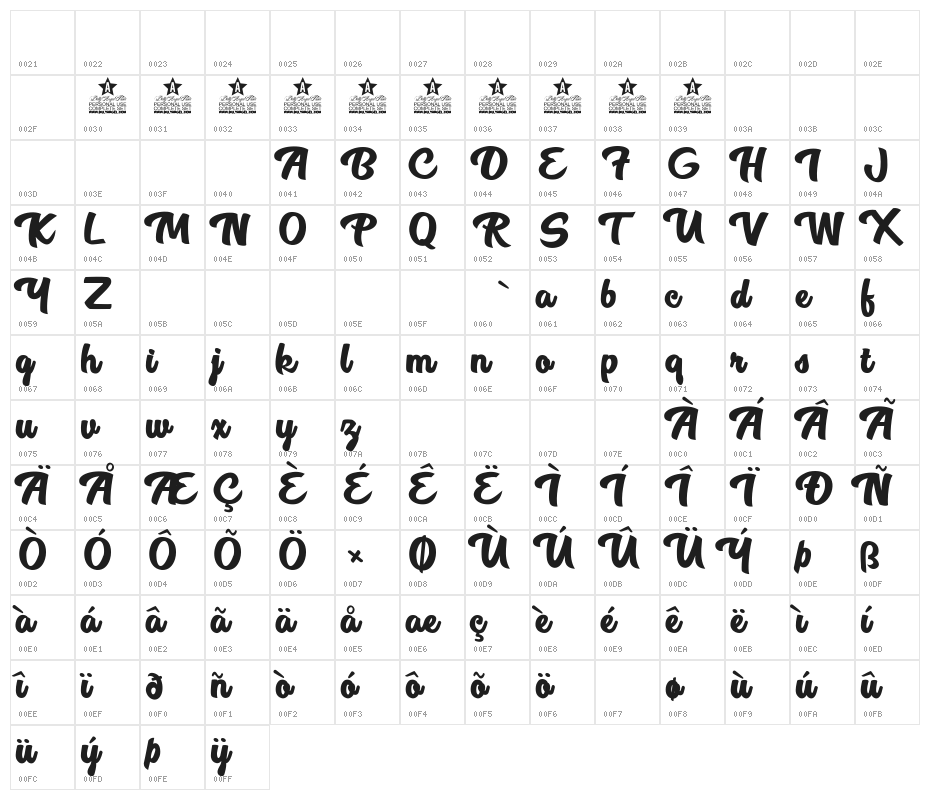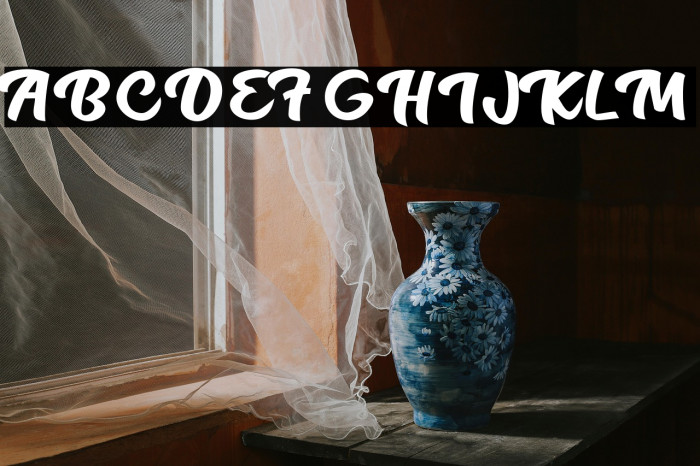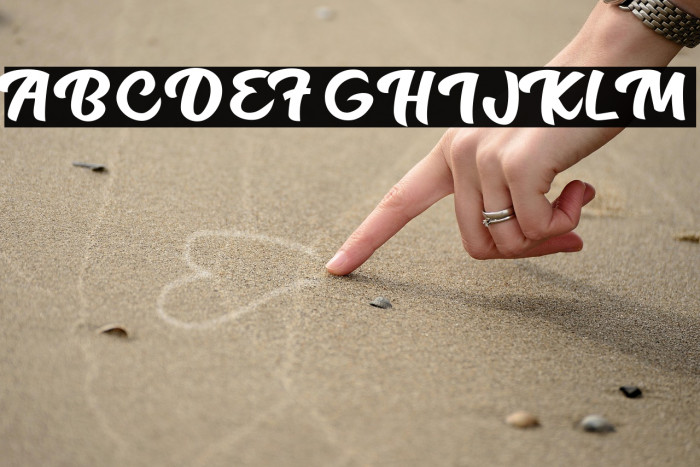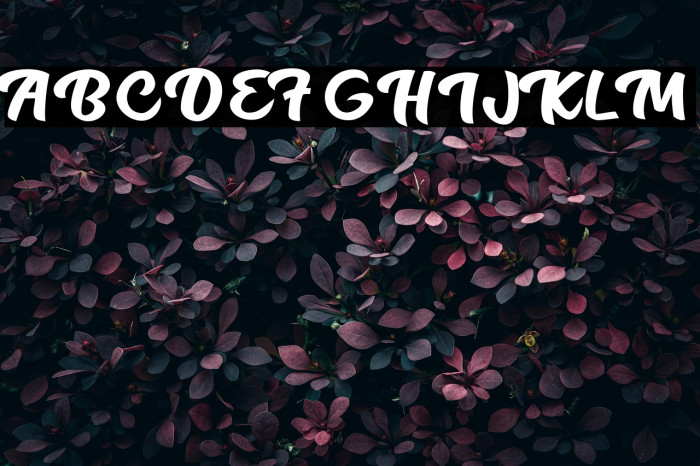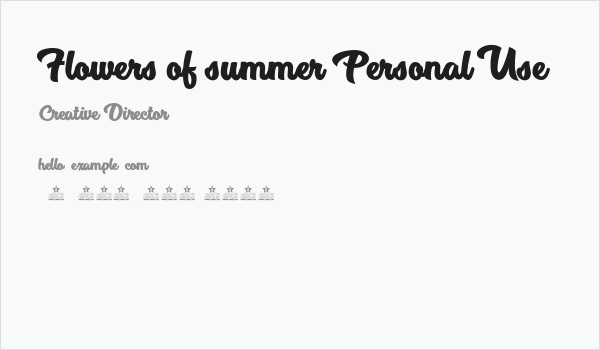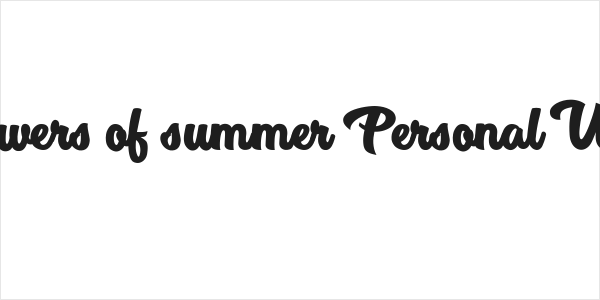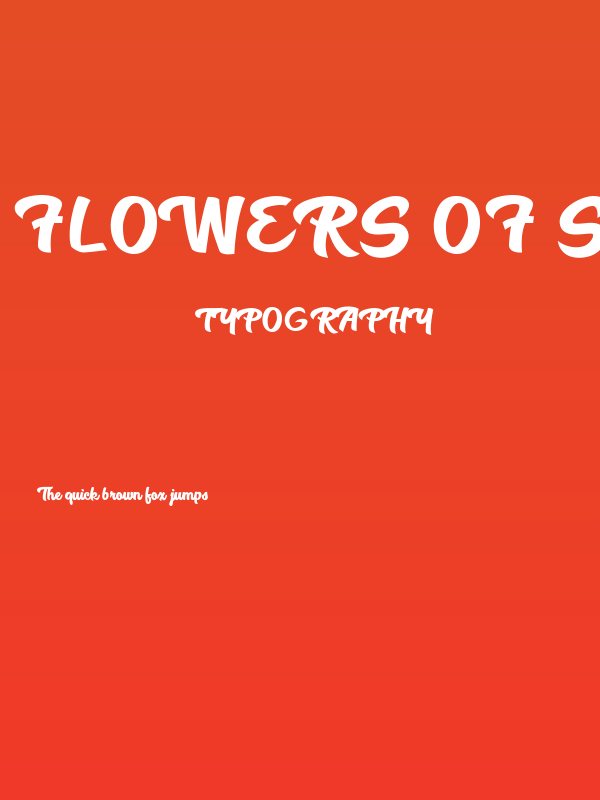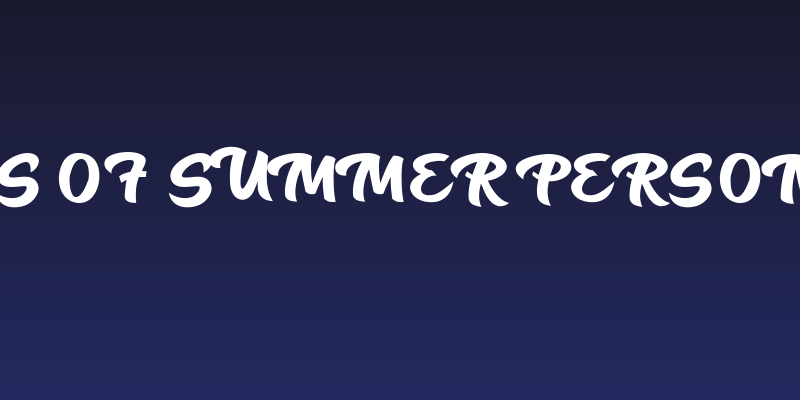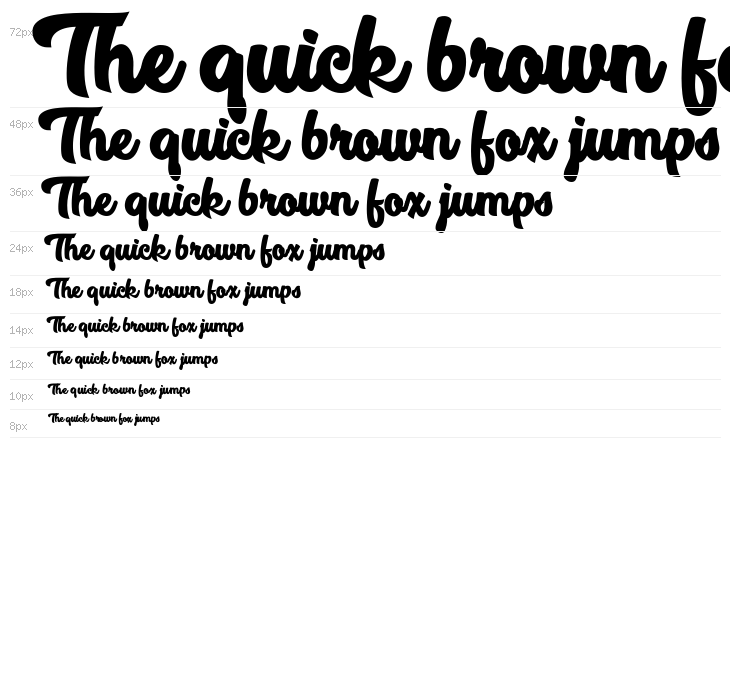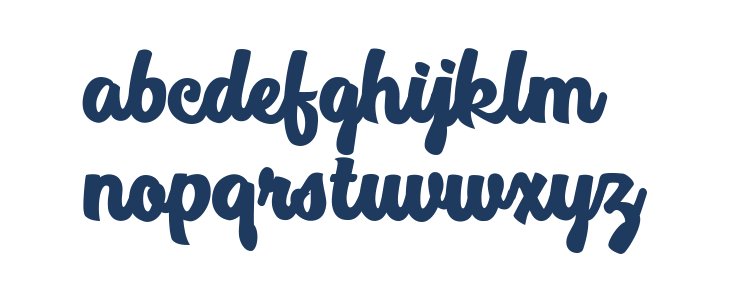
Flowers of summer Personal Use Font
Flowers of summer Personal Use Description
This font features a bold and flowing script style, characterized by its smooth, connected letters that mimic the fluidity of handwriting. The uppercase letters are elegantly curved, while the lowercase letters maintain a consistent thickness, enhancing readability. The font exudes a playful yet sophisticated vibe, making it suitable for creative and expressive designs. Its bold weight and consistent stroke width give it a strong presence, ideal for making impactful statements. The overall style is decorative, with a modern twist that adds a touch of elegance to any project.
| Proposed Projects | Ideal for invitations, greeting cards, branding, and logo design. |